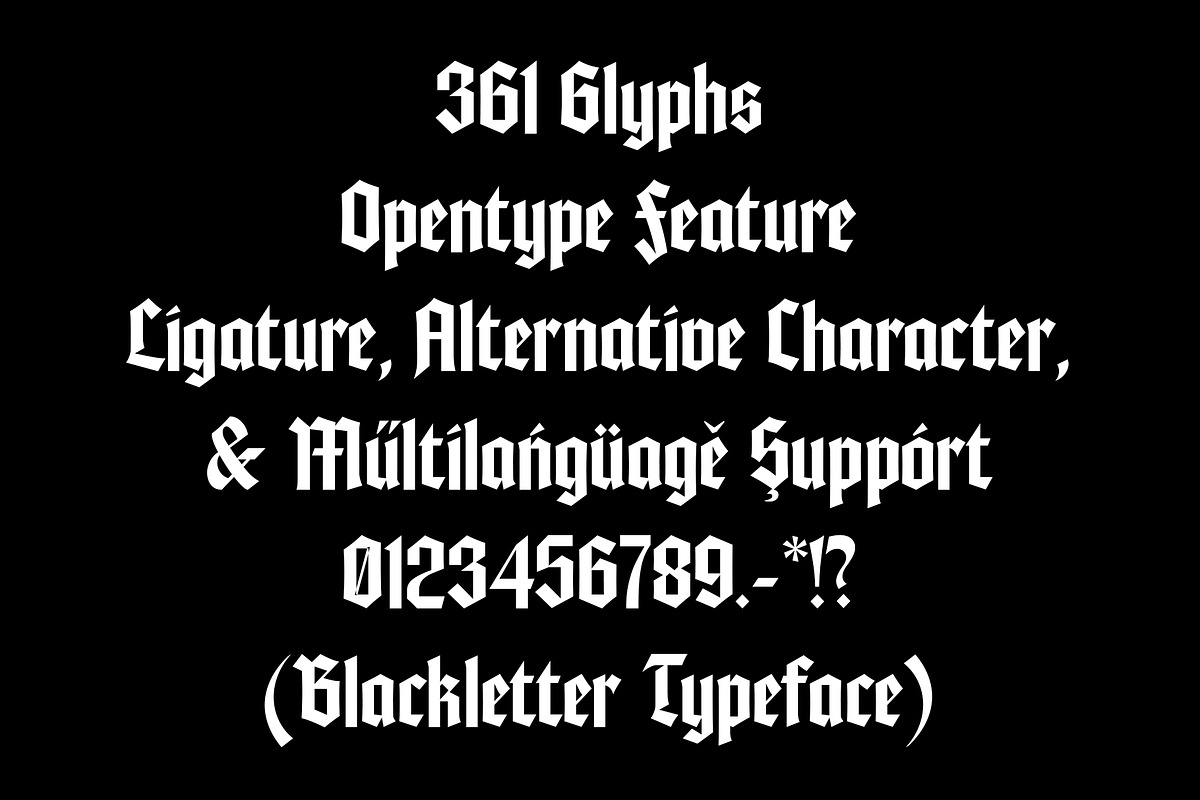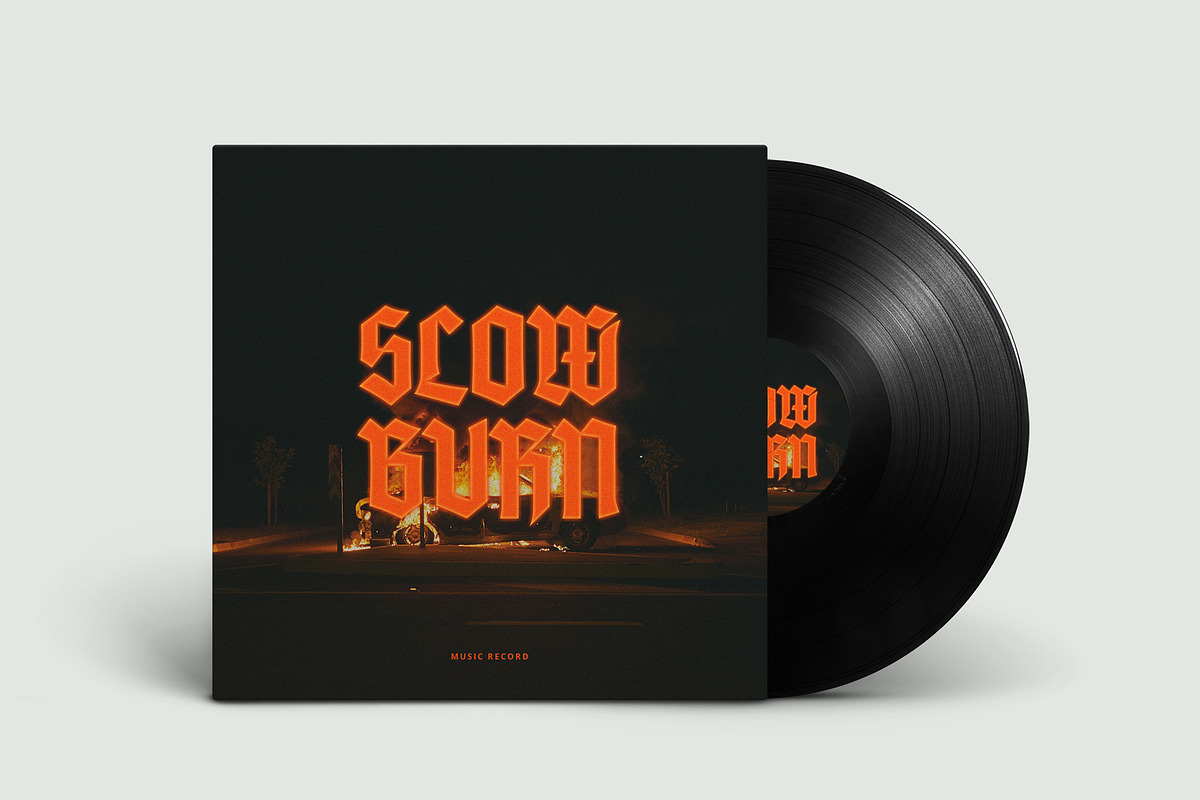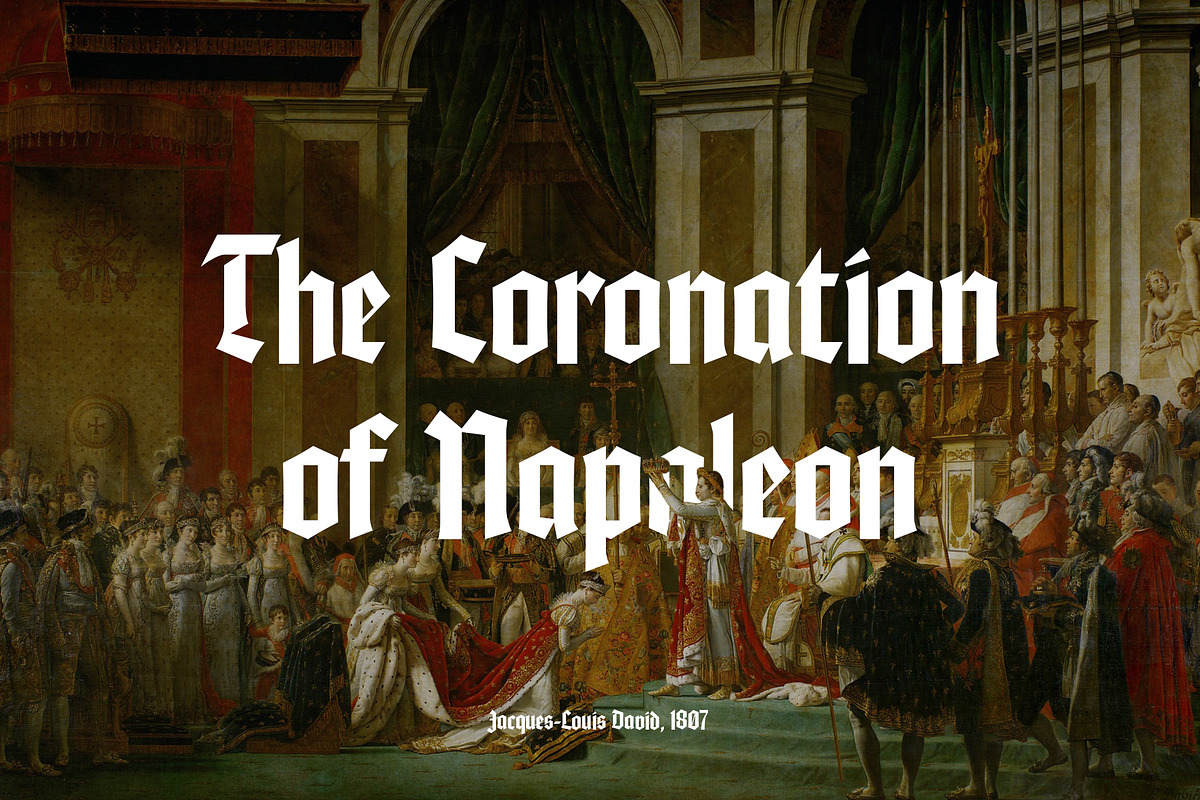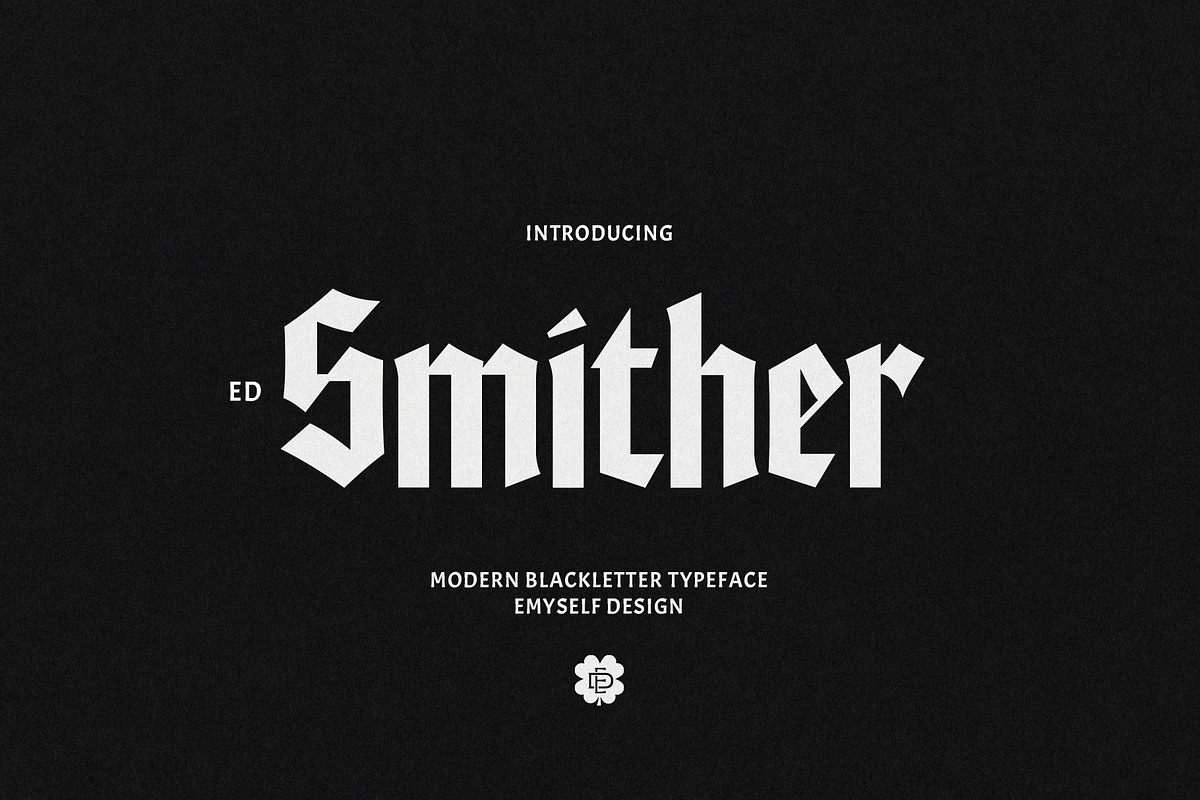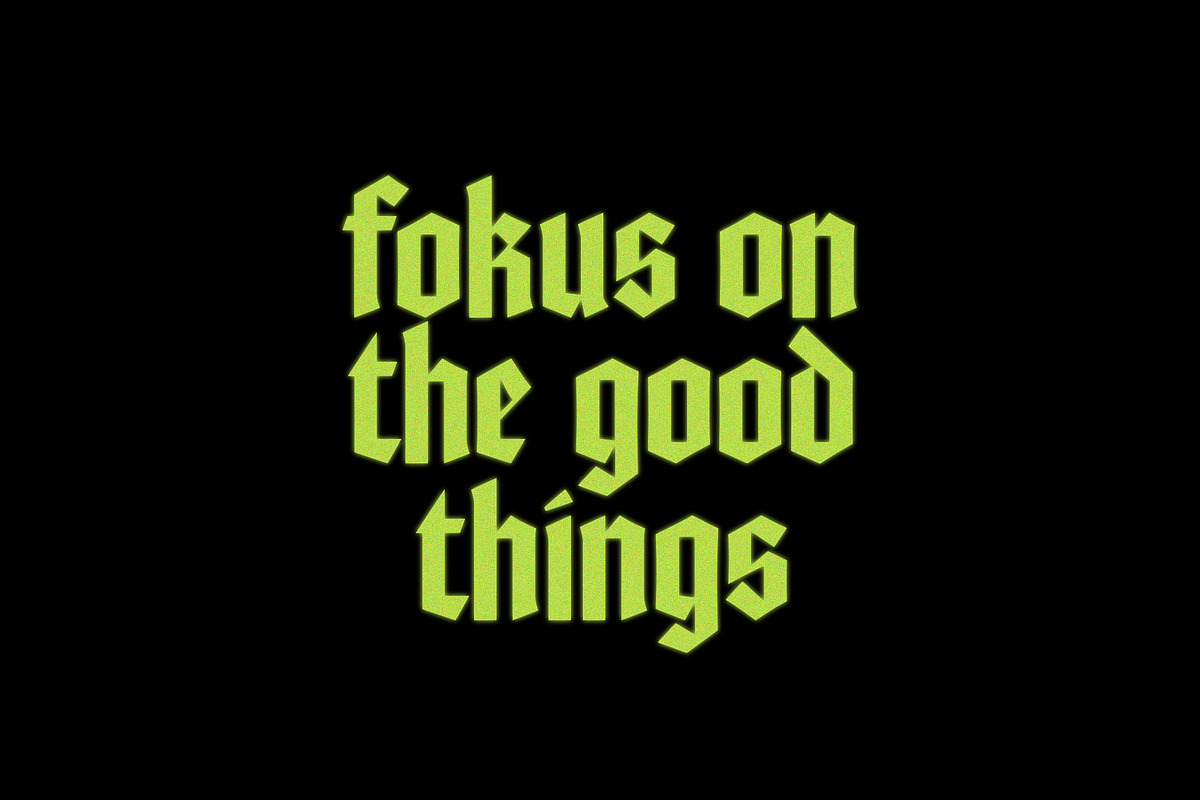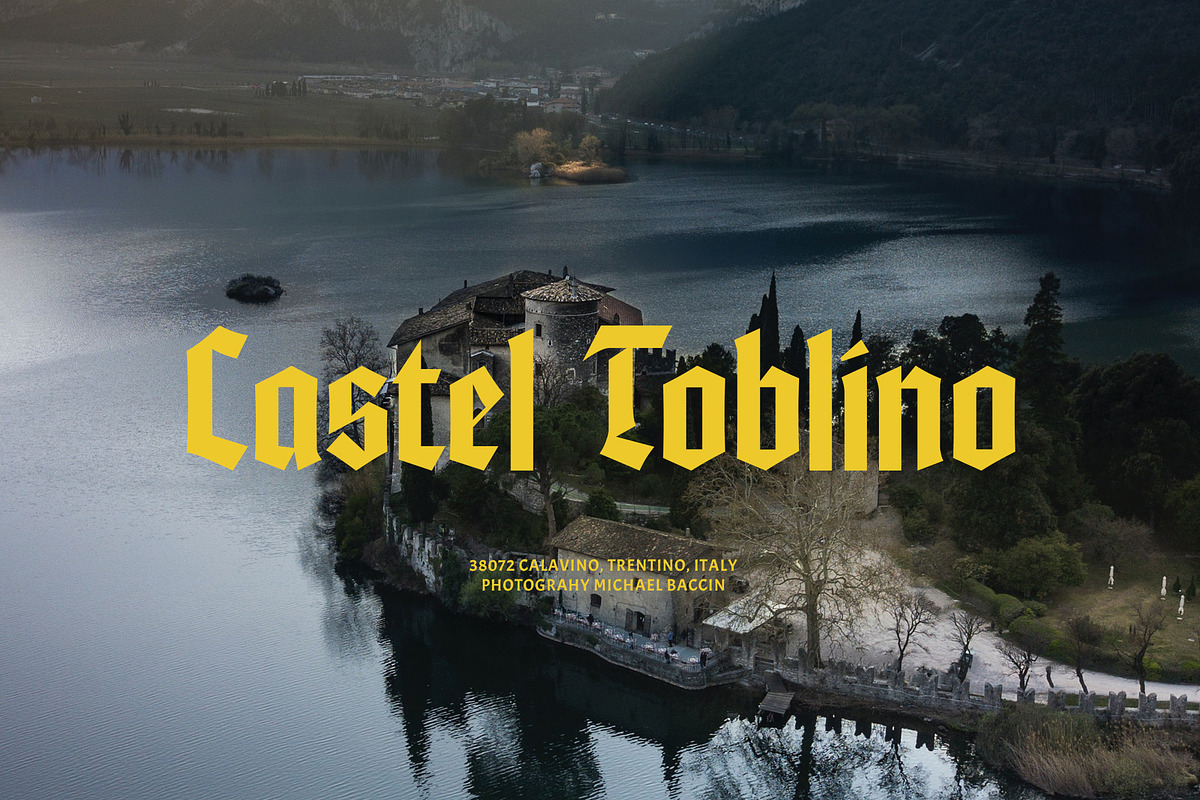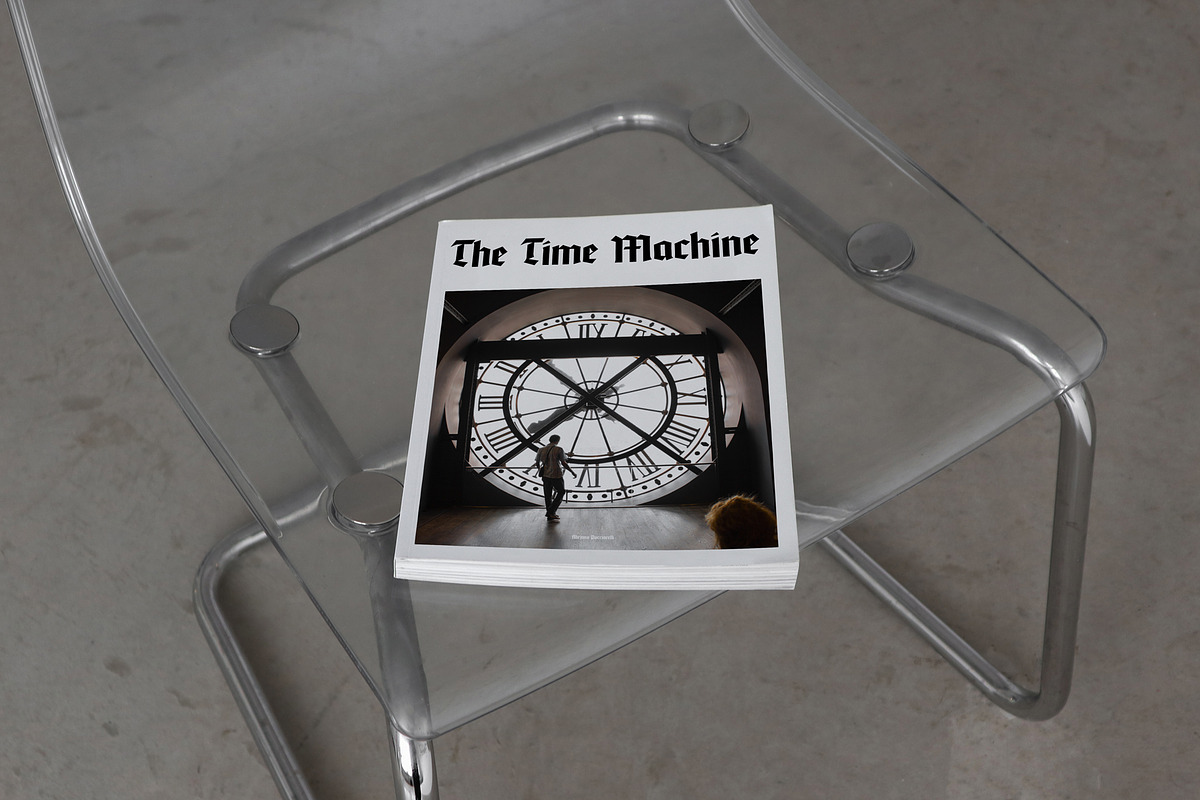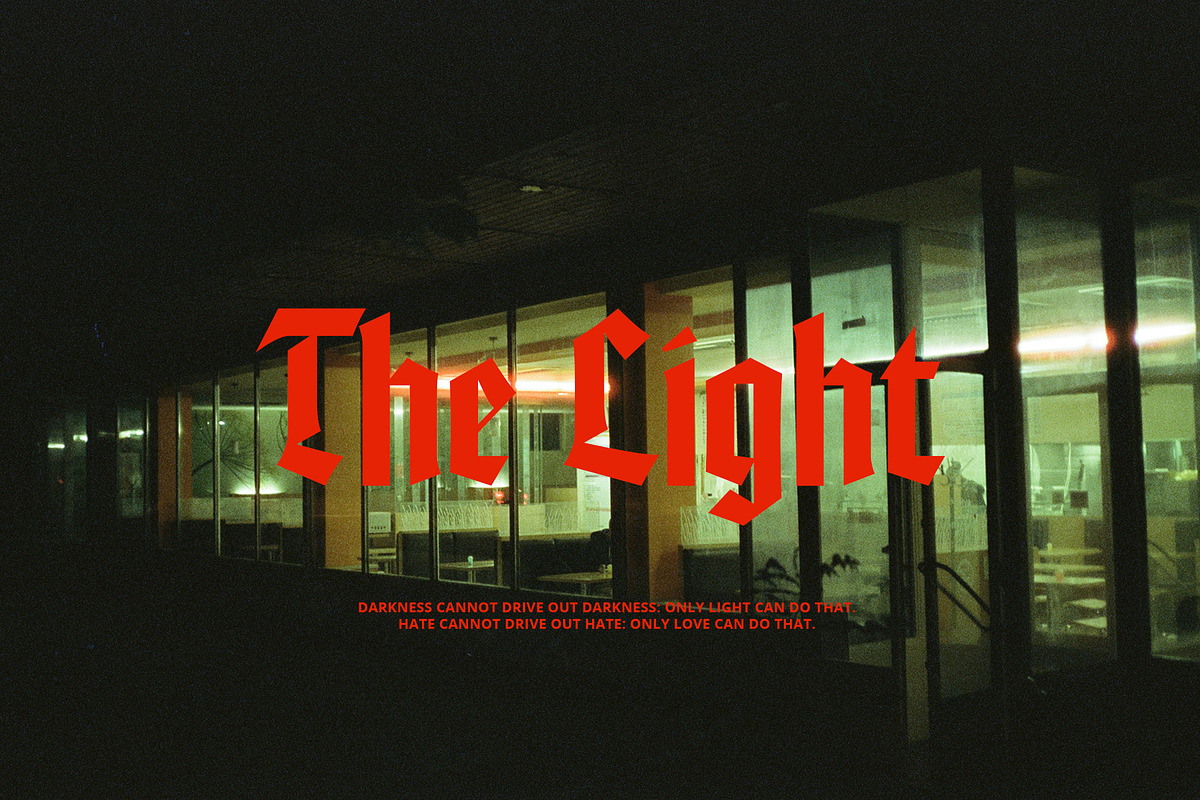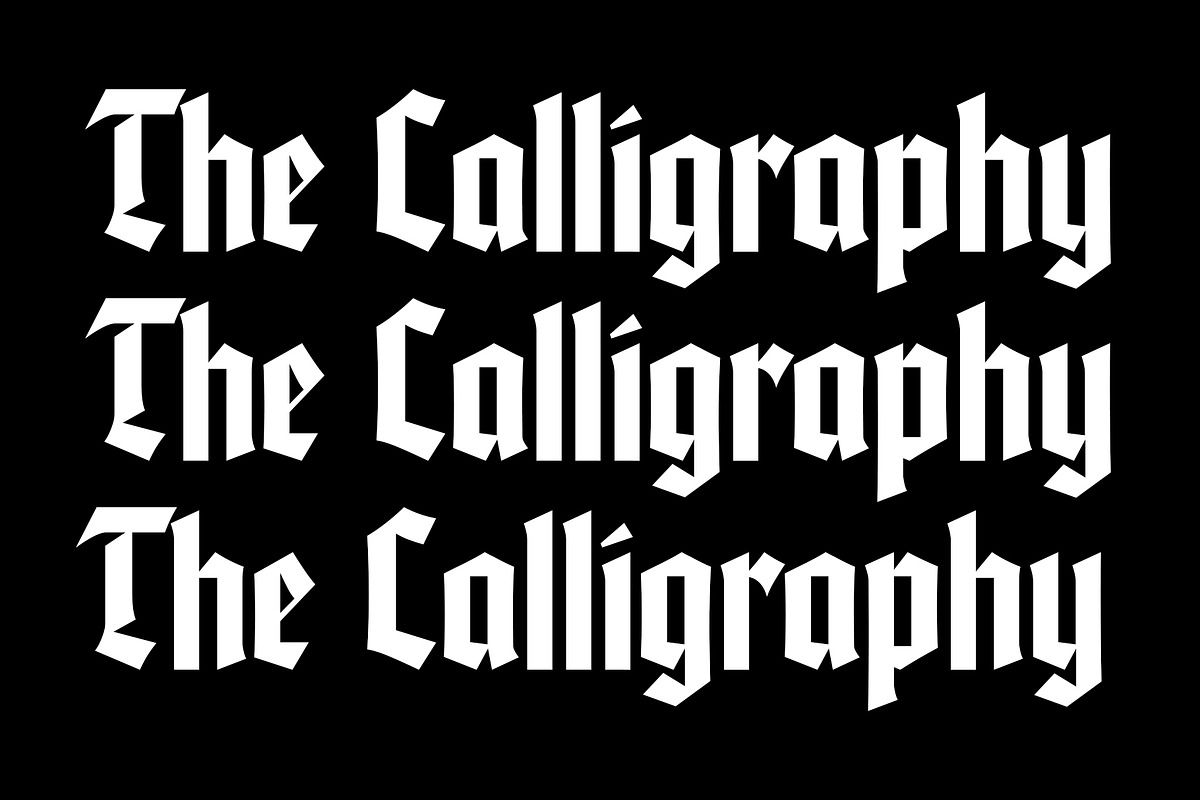
ED Smither - Blackletter typeface
ED smither is a textura type blackletter font that looks clean and modern. This font design is inspired by “Standartarte”, 1934 by Schelter & Giesecke Leipzig. with a redesign that makes the letters look modern. This font also includes supporting features such as ligatures, alternative characters and multilingual support.
This font is perfect for your creative projects such as Logotype, printed quotes, invitations, cards, product packaging, headers, Letterhead, Apparel , Web design, Magazine, Book, etc.
- Total Glyph : 361
- Punctuation and Marks
- stylistic set & Ligatures